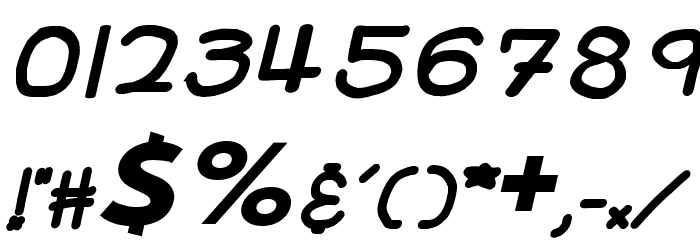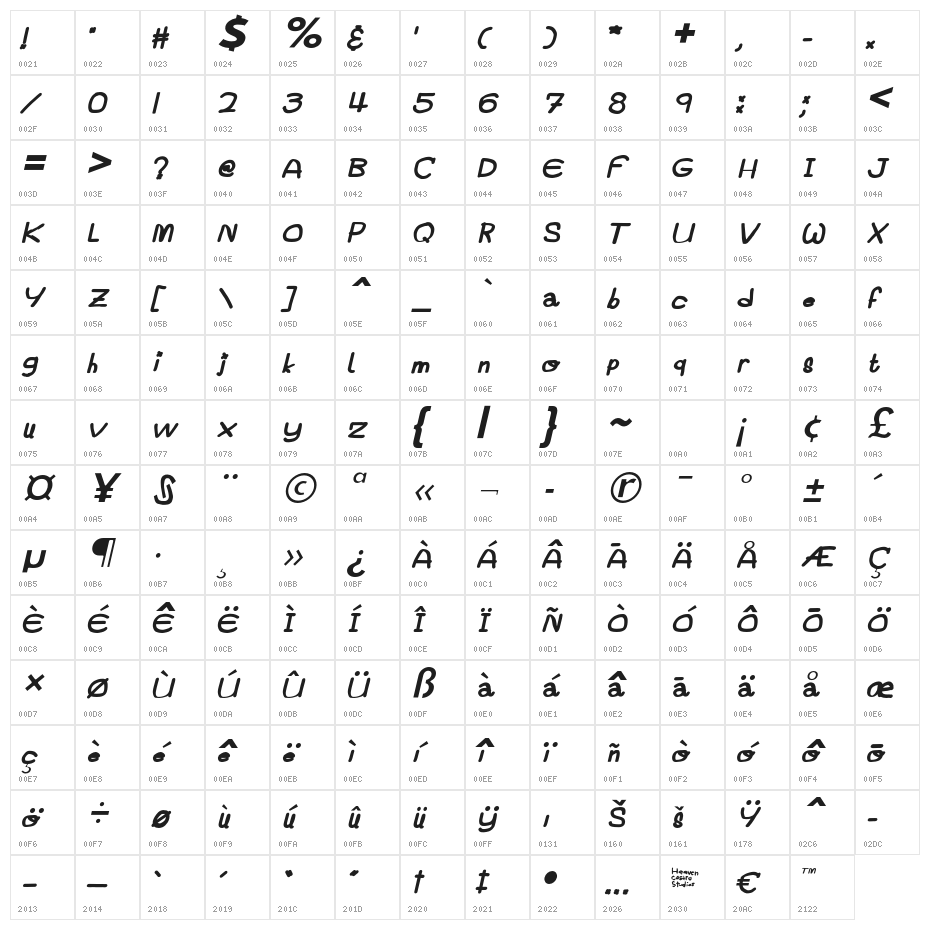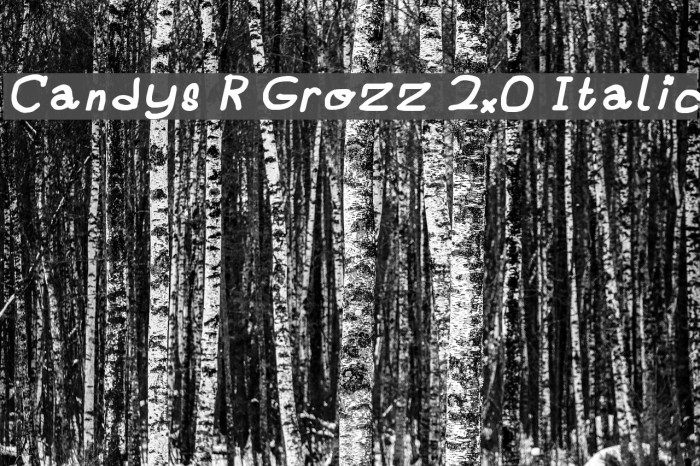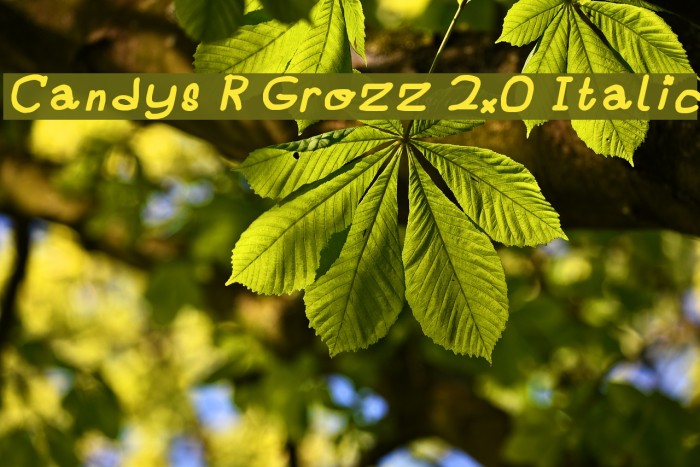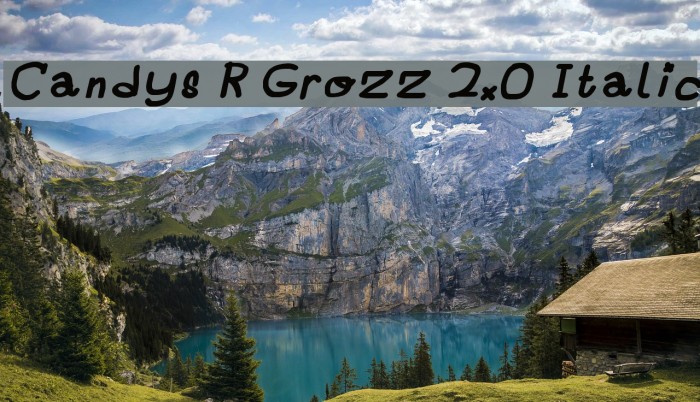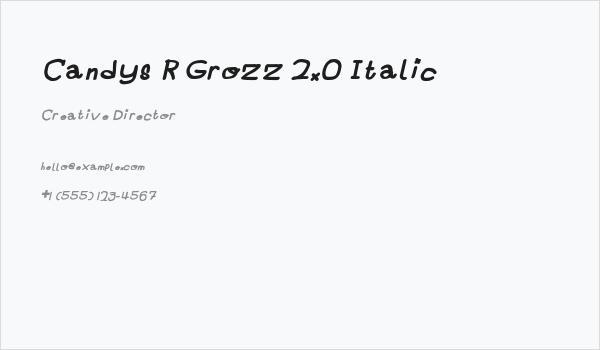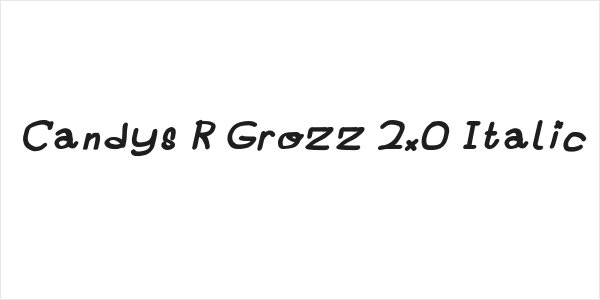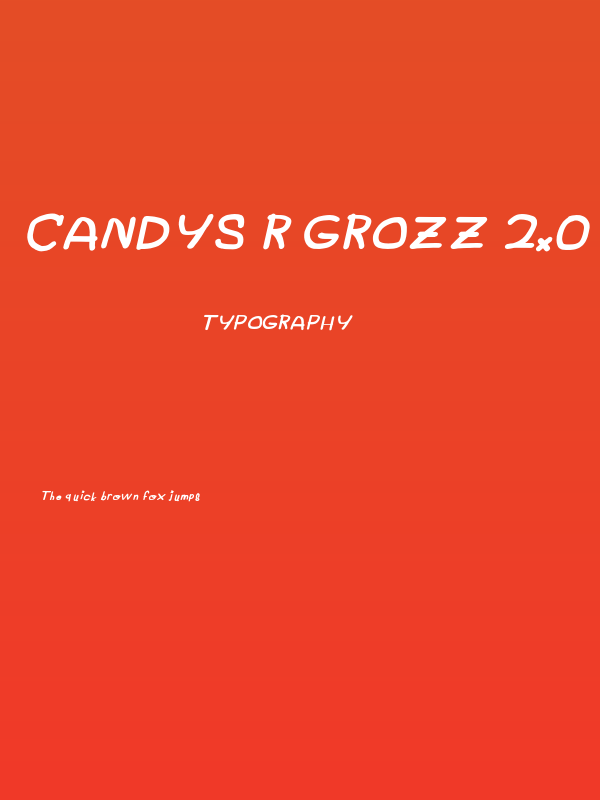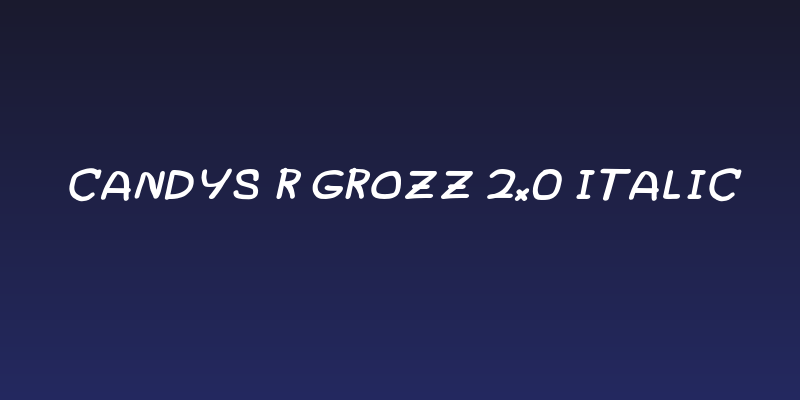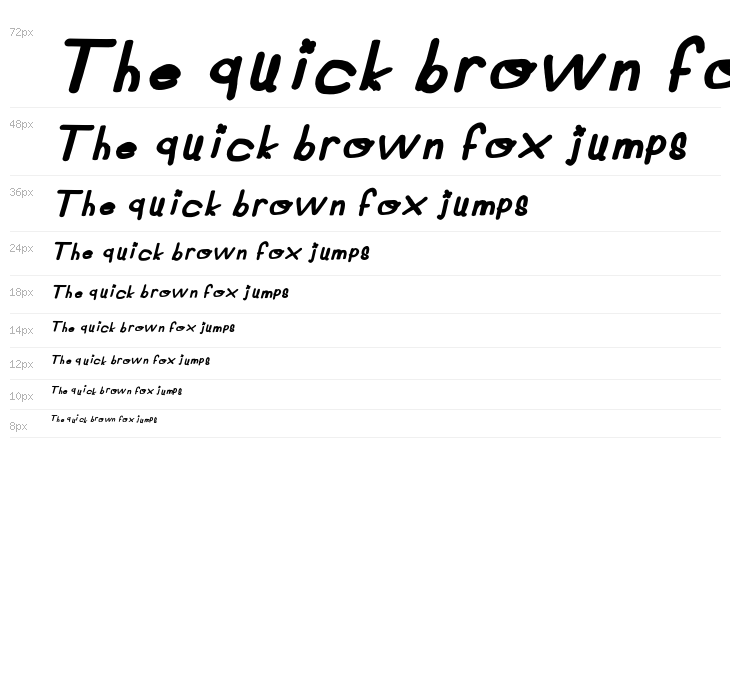
Candys R Grozz 2.0 Italic Font
Candys R Grozz 2.0 Italic Description
This playful and dynamic font features a handwritten style with a slight slant, giving it an italicized appearance. The characters are bold and rounded, with a whimsical touch that adds personality to each letter. The uppercase and lowercase letters maintain a consistent style, with smooth curves and a casual flow. The numbers and special characters are equally expressive, making the font versatile for various creative applications. Its unique style is perfect for projects that require a fun and informal tone.
| Proposed Projects | Ideal for children's book covers, playful branding, greeting cards, and creative posters. |